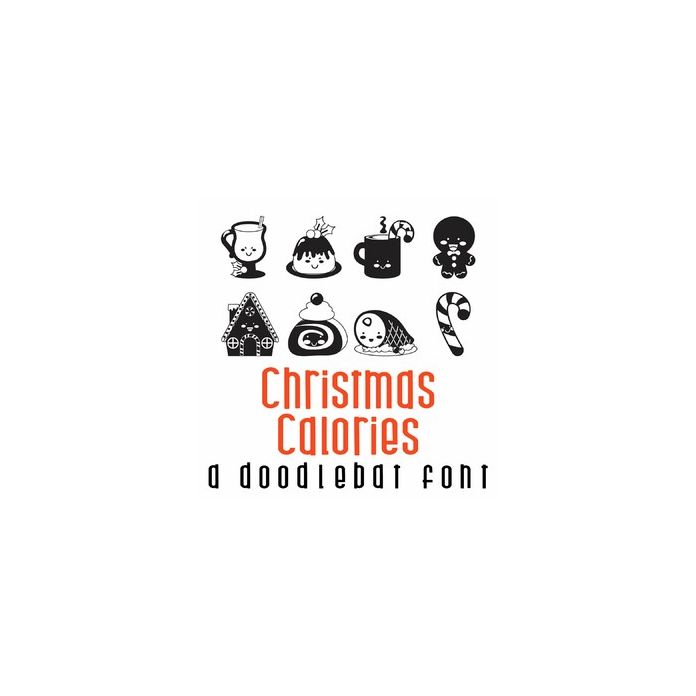
This fun kawaii style doodlebat font features 26 adorable Christmas foods. Perfect for cards, crafts, gifts, decor, scrap book pages, planner stickers and more!